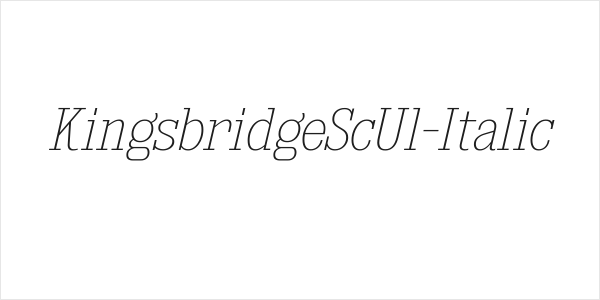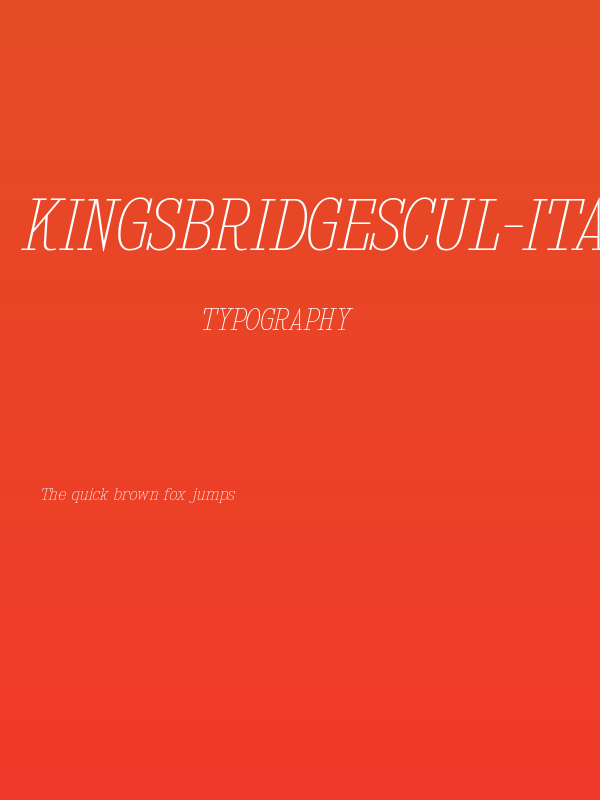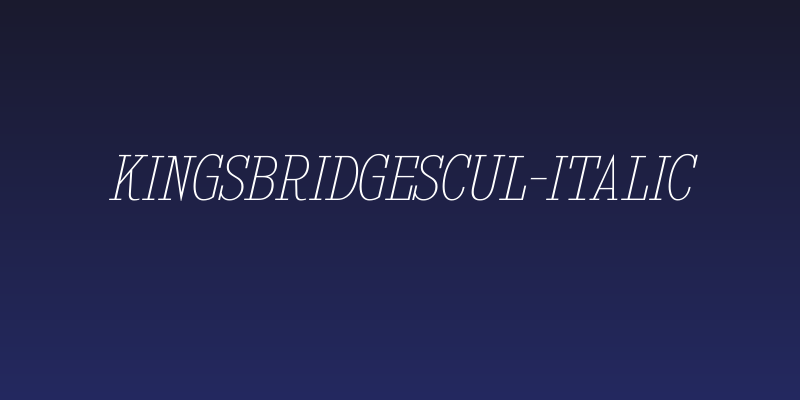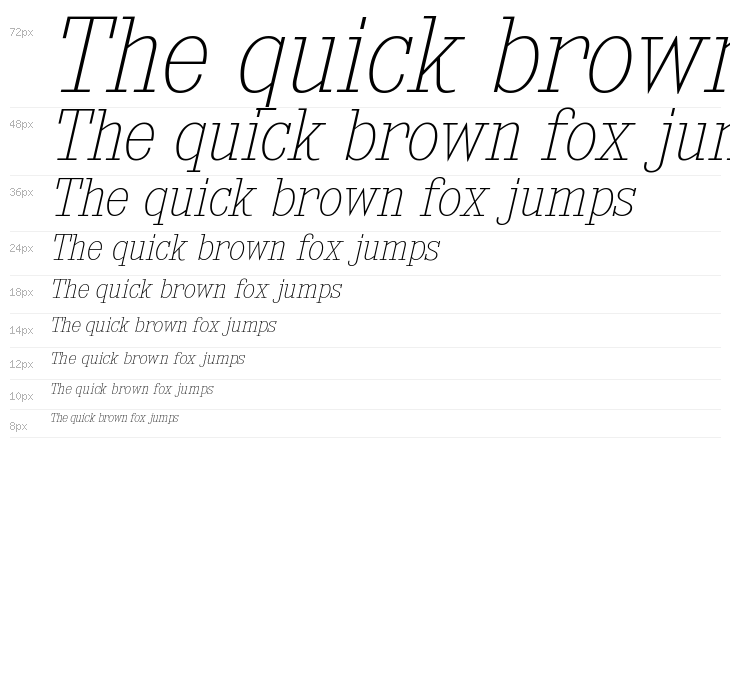
KingsbridgeScUl-Italic Font
KingsbridgeScUl-Italic Description
This font exudes a classic elegance with its italicized form, featuring thin, elongated strokes that convey a sense of sophistication and grace. The uppercase letters are tall and slender, while the lowercase letters maintain a consistent flow, enhancing readability. The numerals are well-proportioned, aligning seamlessly with the overall style. Special characters are crafted with precision, adding to the font's versatility. The subtle slant of the letters adds a dynamic quality, making it suitable for both formal and creative applications.
| Proposed Projects | Ideal for wedding invitations, luxury branding, editorial design, and elegant packaging. |